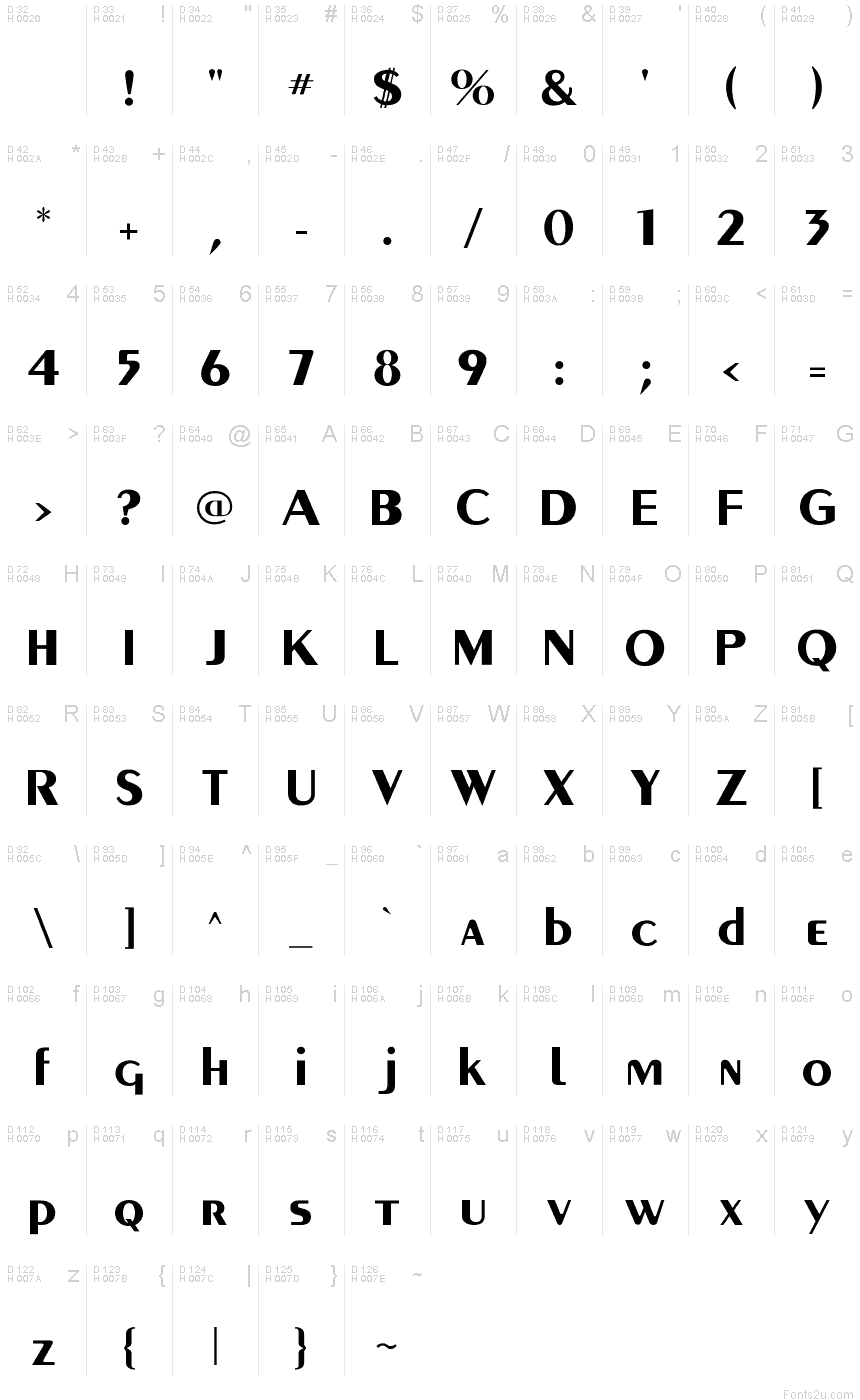
MontereyFLF-Bold
MontereyFLF Bold by Richard A. Ware is a free geometric display font built from broad, emphatic capitals. Its letters combine near-geometric curves with abrupt angles and dramatic changes in stroke width. The result is compact and assertive, with a slightly unconventional edge rather than the even construction of a standard sans serif.
Fashion branding and music posters can both use its oversized silhouettes to project a sharp, confident attitude. The broad forms also suit packaging for contemporary fragrance or apparel, where the lettering can function almost like a logo. It is equally convincing on magazine covers and live event graphics.